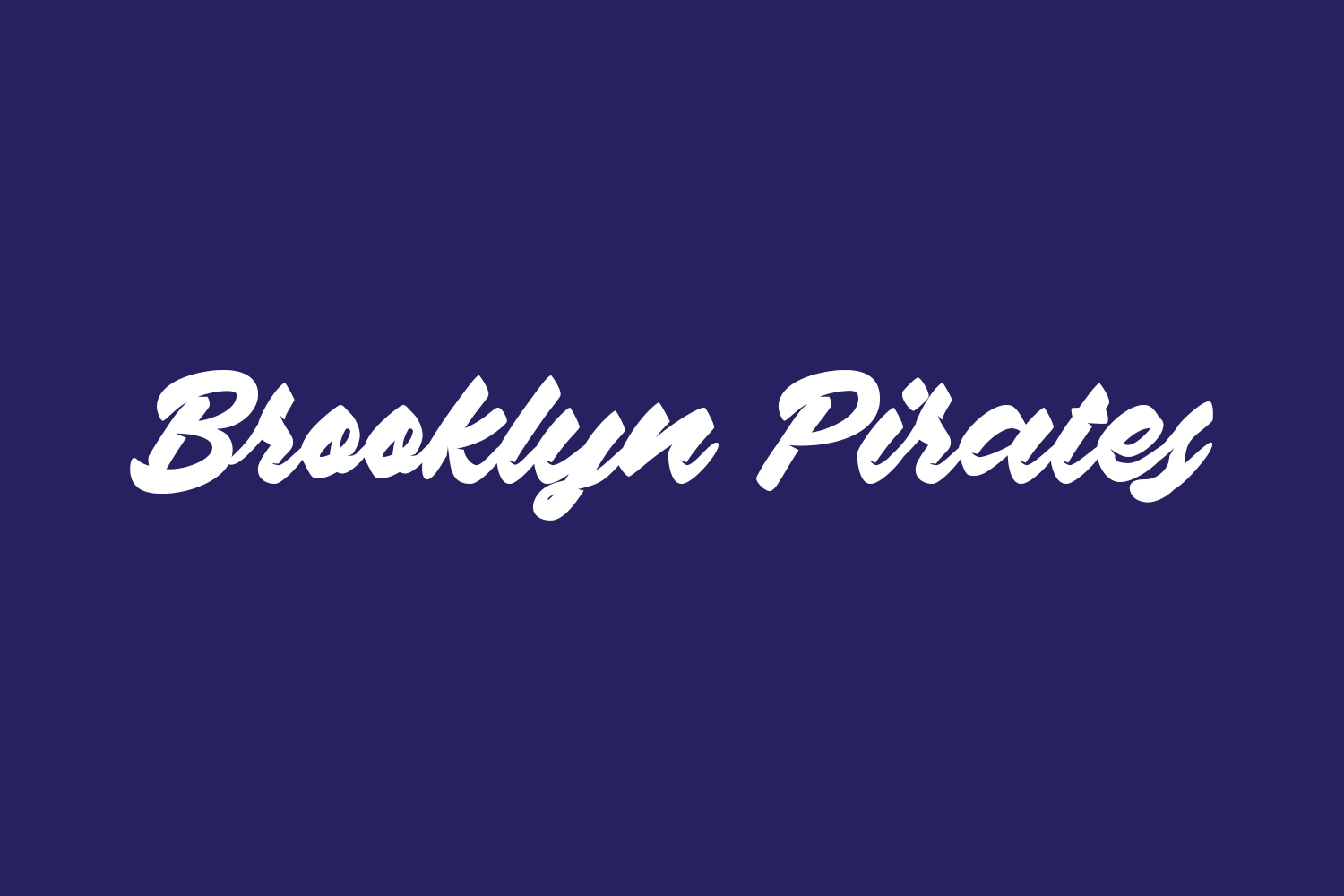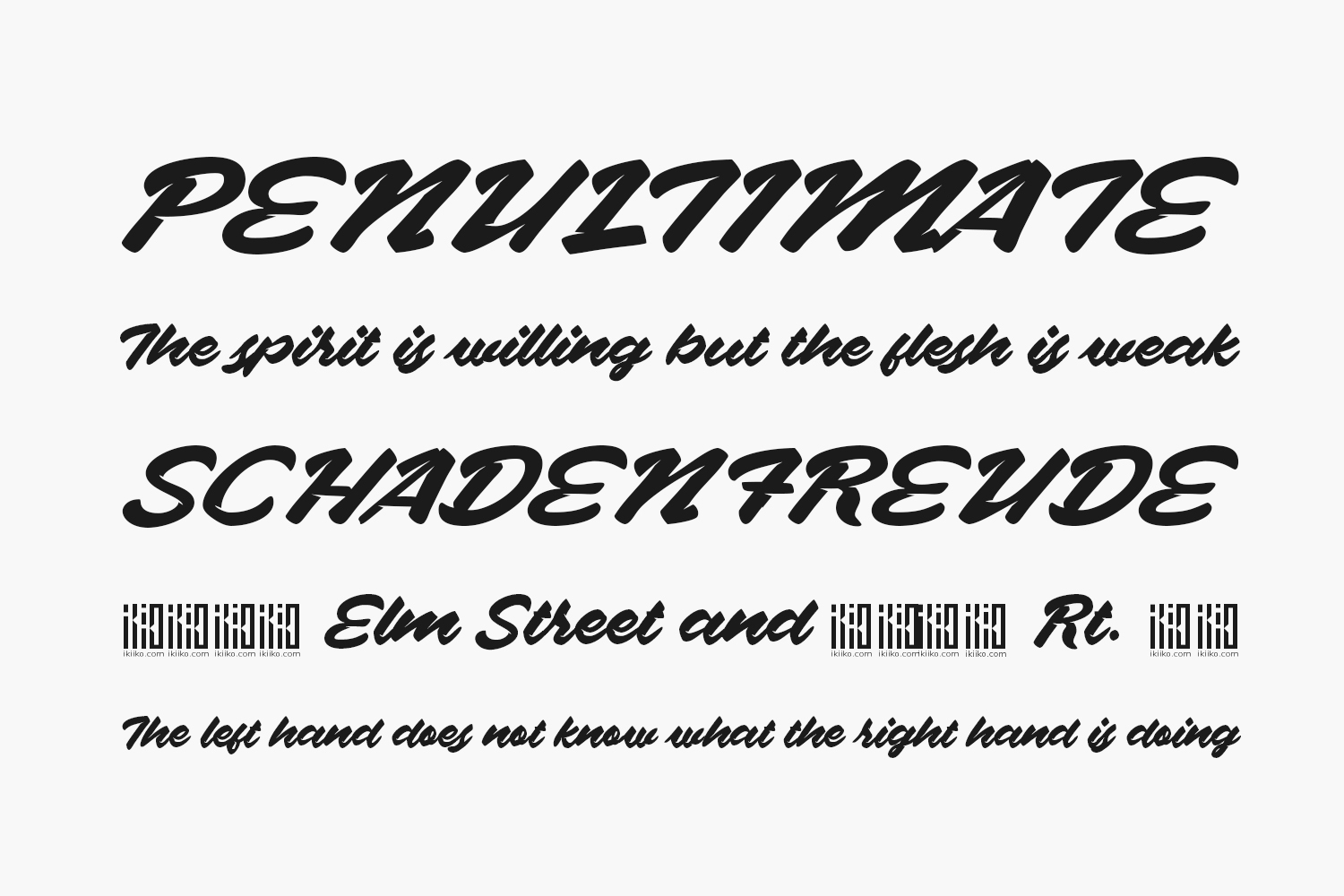
Discover the allure of Brooklyn Pirates Free Font, a stunning and daring handwritten font meticulously designed to impart a stylish touch to your headlines and logotype projects. This font exudes strength, confidence, and dynamism, injecting a wealth of nostalgic character into your designs. Elevate your visual impact with the bold and gorgeous Brooklyn. Download the font for free if you need it for personal use or purchase the full version for commercial use.